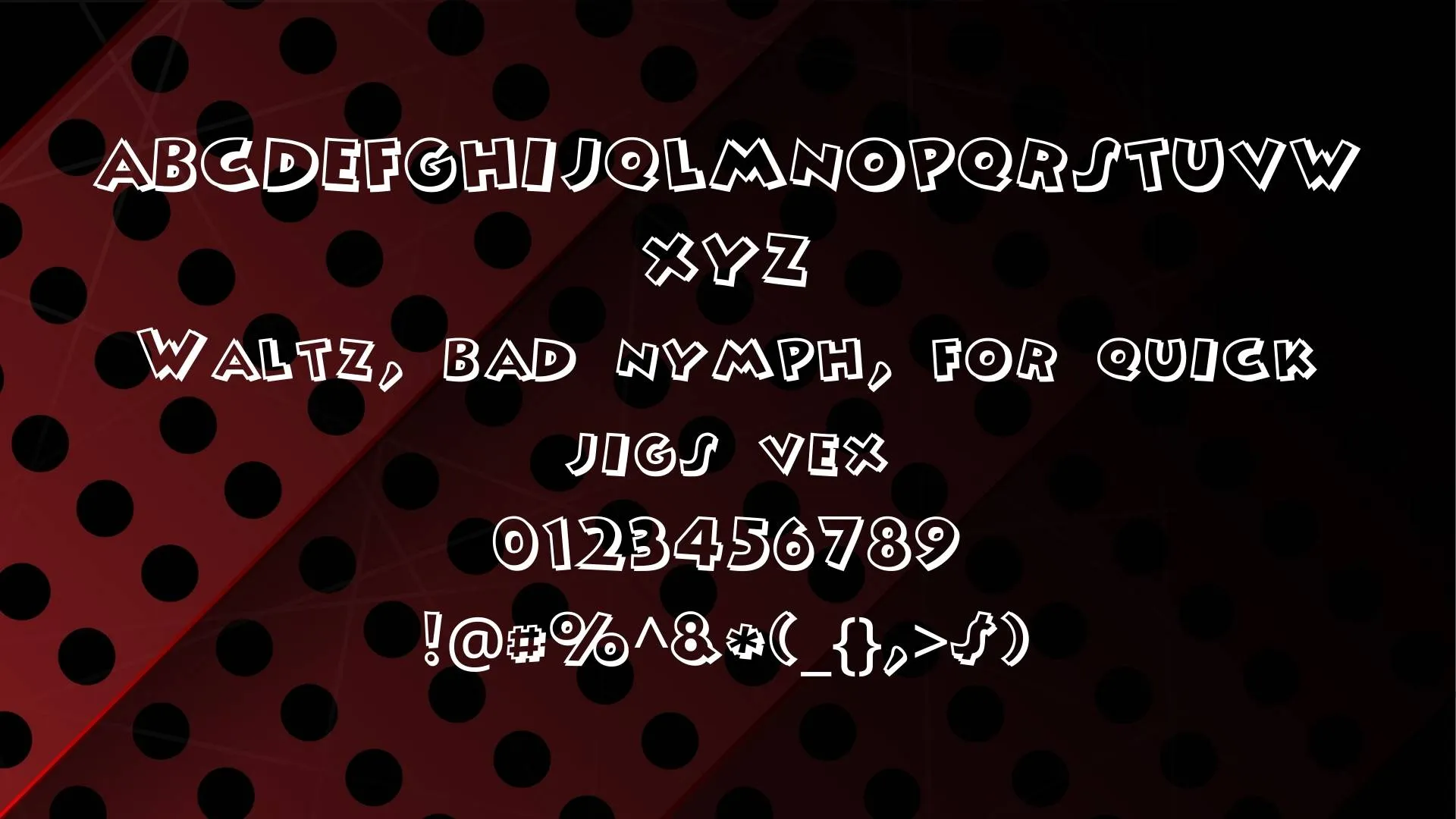
In this post, we are presenting a high-quality typeface that is named Mickey Ears font, designed and released by GorillaBlu.
This font family comes in the category of Disney font that is perfect for creating comic designs, cartoons, brands, stationeries, products, and printing projects.
| Name | Mickey Ears Font |
| Designer | GorillaBlu |
| Style | Disney |